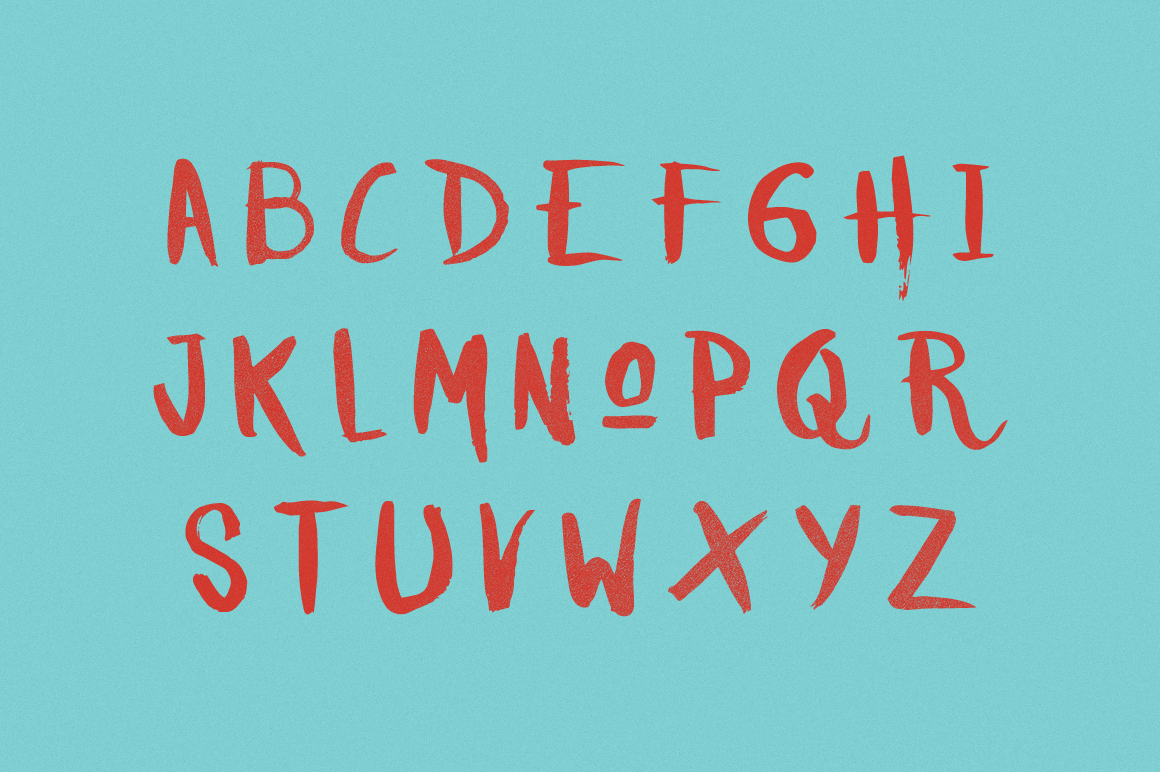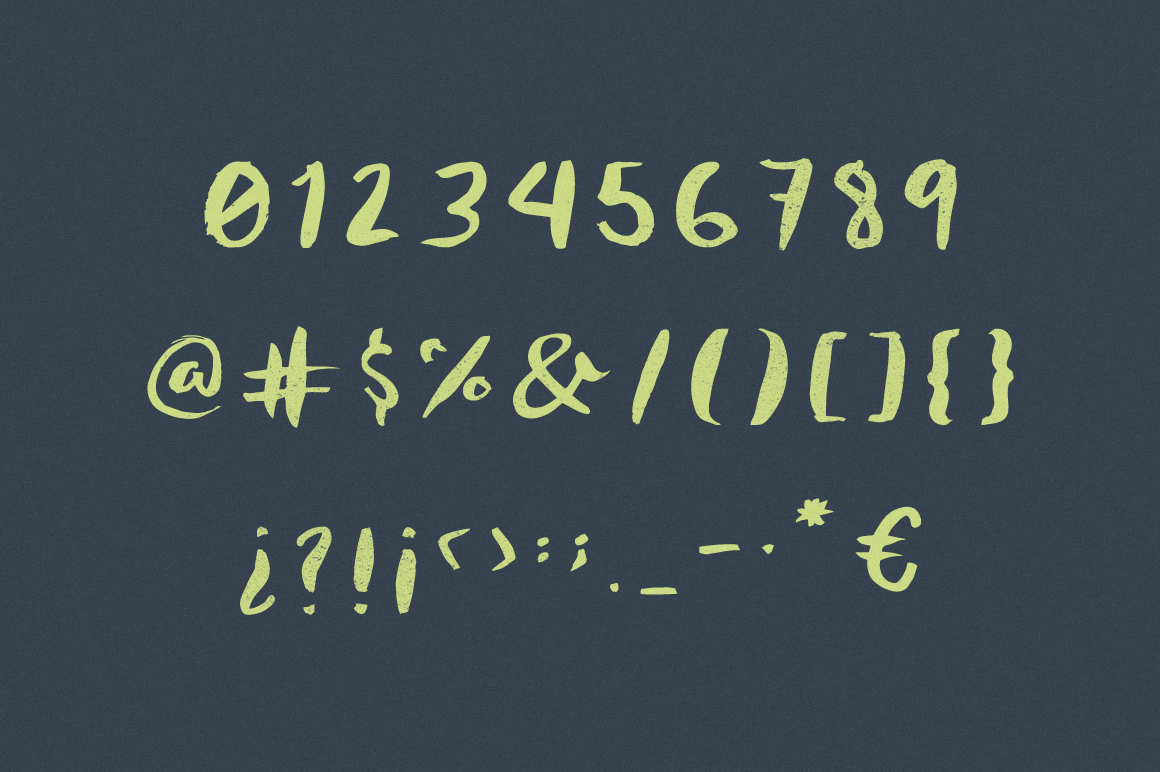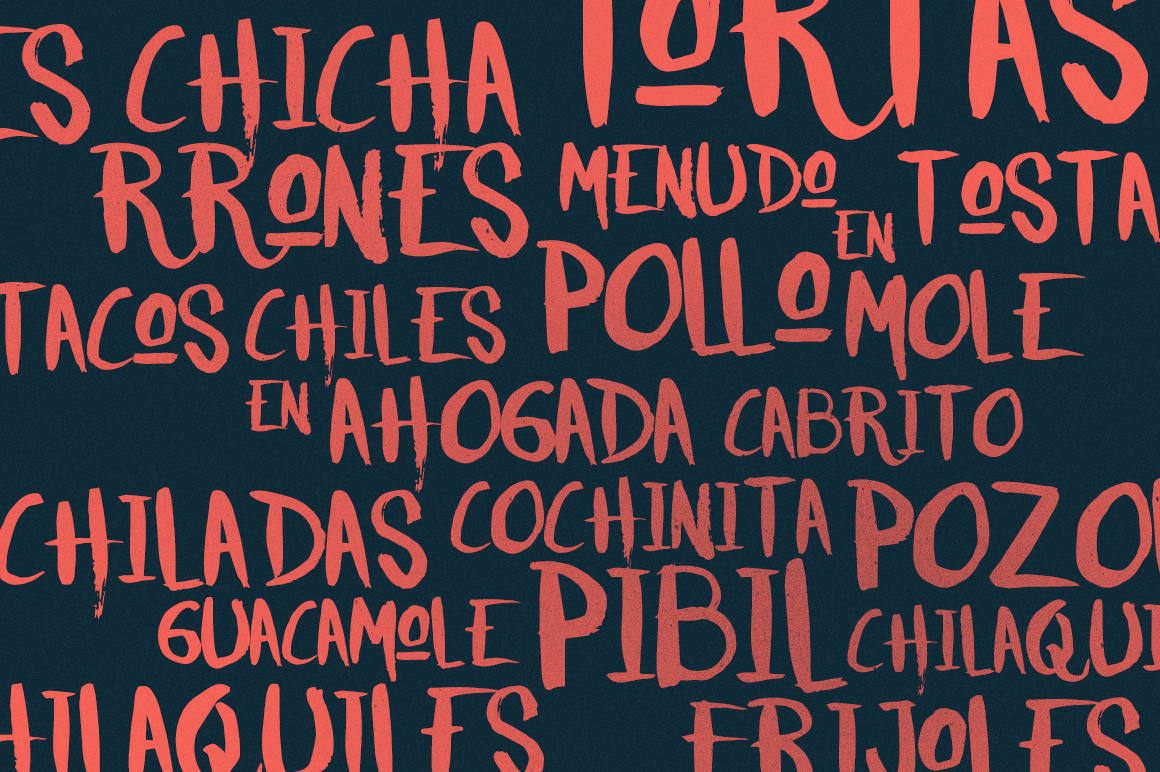
Introducing Akuma Font: A Handmade Masterpiece for Creative Projects
Akuma is a beautiful handmade font which can be used for various purposes such as posters, logos, letterheads, and much more! This stunning font is perfect for designers and crafters looking to add a personal touch to their creative projects. In this article, we’ll dive into the world of Akuma Font, exploring its features, uses, and benefits.
What is Akuma Font?
Akuma Font is a unique, handmade typeface that exudes elegance and sophistication. Its creator carefully crafted each letter to ensure a distinctive and artistic feel, making it perfect for projects that require a touch of personality. The font’s name, Akuma, is derived from Japanese culture, meaning “demon” or “evil spirit.” However, this font is anything but evil – it’s a beautiful tool for creative expression.
Key Features of Akuma Font
- Handmade with love: Each letter is carefully crafted to ensure a unique and artistic feel.
- Versatile: Suitable for various design projects, including posters, logos, letterheads, and more.
- Elegant and sophisticated: Adds a touch of refinement to any design.
Uses of Akuma Font
Akuma Font is an incredibly versatile typeface, suitable for a wide range of design projects. Here are some ideas to get you started:
- Posters and flyers: Add a touch of elegance to your promotional materials.
- Logos and branding: Create a unique and memorable brand identity.
- Letterheads and stationery: Elevate your business correspondence with a sophisticated font.
- Digital and print media: Use Akuma Font in your social media graphics, e-books, and print publications.
Benefits of Using Akuma Font
So, why choose Akuma Font for your design projects? Here are some benefits:
- Stand out from the crowd: With its unique, handmade feel, Akuma Font will set your designs apart.
- Enhance your brand: Akuma Font’s elegant and sophisticated feel will elevate your brand’s visual identity.
Tips for Using Akuma Font
To get the most out of Akuma Font, here are some tips:
- Experiment with colors: Akuma Font looks stunning in a range of colors, so don’t be afraid to try different combinations.
- Mix and match: Combine Akuma Font with other typefaces to create a unique visual identity.
- Pay attention to spacing: Make sure to adjust the spacing between letters to ensure optimal readability.